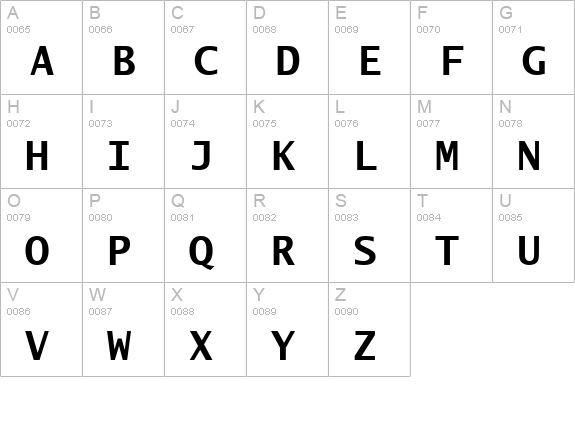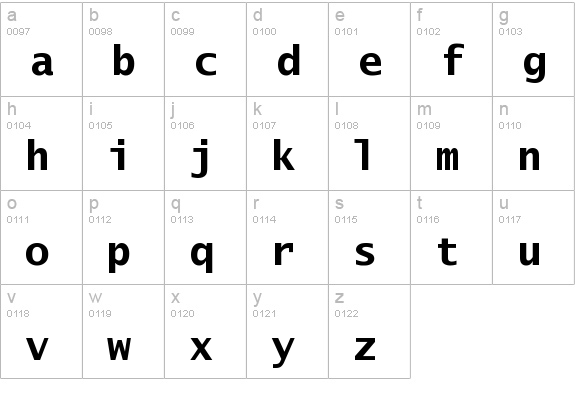
Lucida Sans Typewriter Bold Font Details
Lucida Sans Typewriter Bold is a strong, high-contrast variant in the Lucida typeface family \xE2\x80\x94 well suited to headlines, attention-grabbing titles, and strong calls-to-action.
Lucida Sans Typewriter Bold is a modern and sleek font that exudes professionalism and clarity. With its bold and distinctive appearance, this font is perfect for making a statement in your designs. The clean lines and sharp edges of Lucida Sans Typewriter Bold give your text a strong and confident look, making it ideal for headlines, titles, and other prominent text elements. Best of all, Lucida Sans Typewriter Bold is available for free download at FontsMarket.com. This means you can easily access this stylish and versatile font for all your design projects without any cost. Whether you're creating a website, designing a poster, or crafting a logo, Lucida Sans Typewriter Bold is a fantastic choice that will elevate your work to new heights. Download it today and see the impact it can make on your designs!